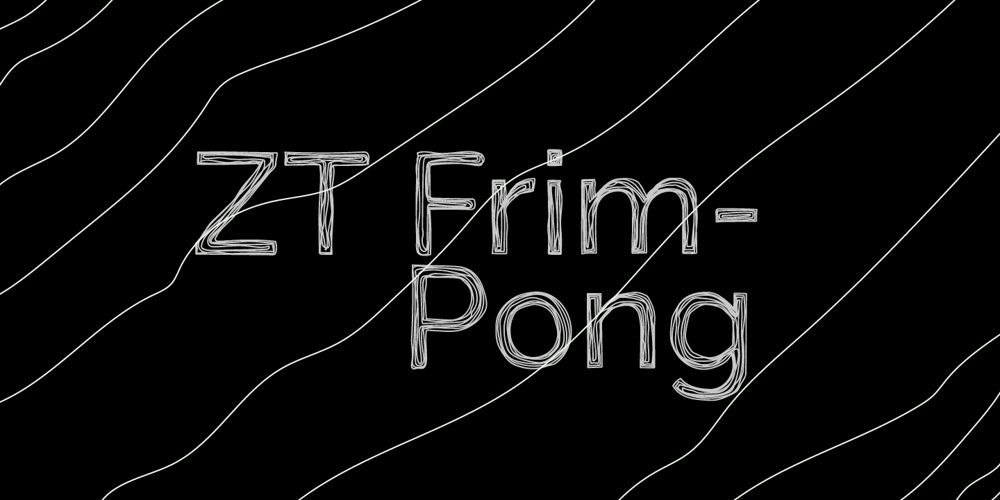
ZT Frimpong Font Family was designed by Khair Unnas and published by Khaiuns. ZT Frimpong contains 3 styles and family package options. ZT Frimpong is a sans serif look made by hand, all the letters are drawn one by one, so that no one line is exactly the same. This is a closed, low contrast typeface with an emphasis on connecting strokes.Sensational style, potentially unique atmosphere, ZT Frimpong comes in three thicknesses, and each type has a different feel, namely each weight of the font texture is getting denser, so there are fewer cavities. It can be used to create almost any type of design project such as Poster materials, logos and web designs. Just use your imagination and your project will come alive and alive than ever with the ZT Frimpong Font.I hope you have fun using ZT FrimpongThanks for using this font ~ Khaiuns X zelowtype